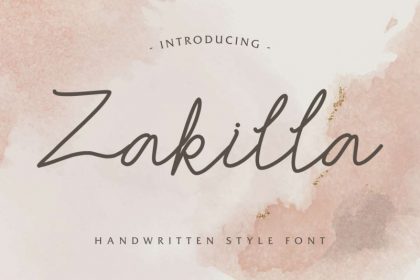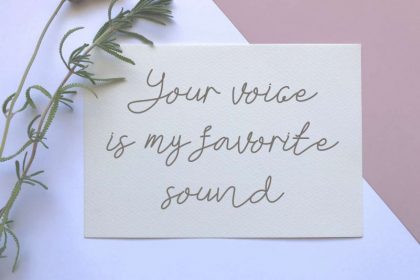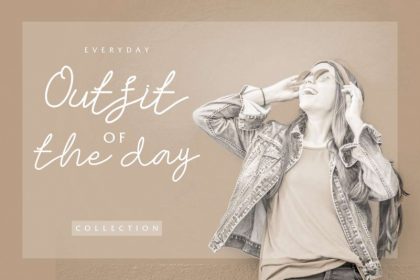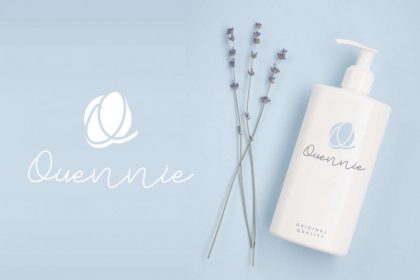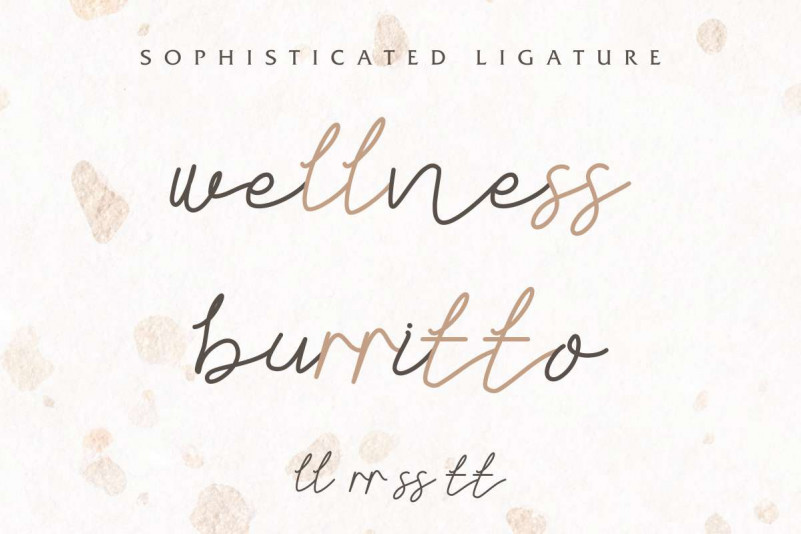
Zakilla Handwritting Font
Zakilla Font is a handwritten script font. Made in Indonesia, this font is now ready to rock the world. Zakilla Font comes with few licenses options, please choose it correctly. If you need it for a web, then we have license for it etc. This font works well on PC & Mac with Simple installations. Accessible in the Adobe Illustrator, Adobe Photoshop, Adobe InDesign, even work on Microsoft Word. It’s also PUA Encoded Characters – Fully accessible without additional design software.